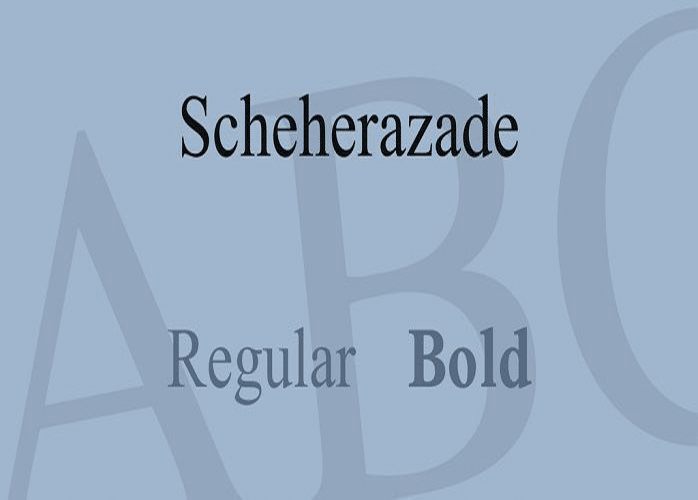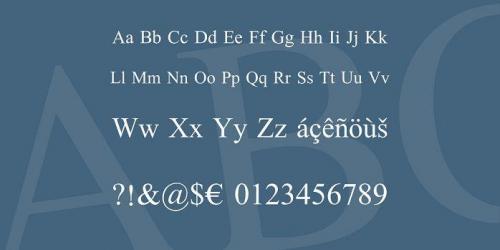
Scheherazade is an Arabic font with a design inspired by traditional typefaces such as Monotype Naskh, extended to cover the full Unicode Arabic repertoire. It is named after the heroine of the classic Arabian Nights tale.
This font was developed by SIL, and you can learn more about it at scripts.sil.org/Scheherazade
- Designer: SIL International